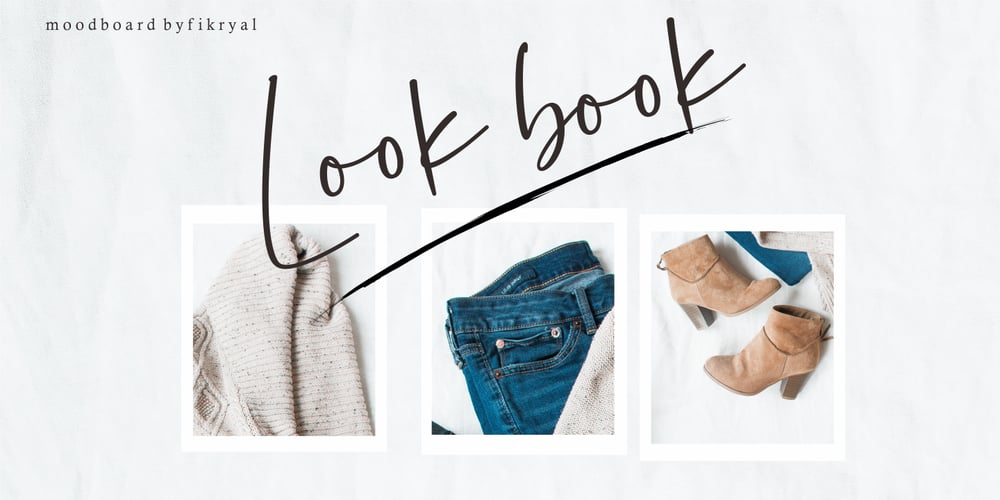
La Pamalia Font Family was designed by Muhammad Fikry and published by Fikryal. La Pamalia contains 1 styles and family package options. La Paloma is a handwritten font, and is perfect for your needs such as: logos, posters, handwriting, mockup, magazines, business cards and more.